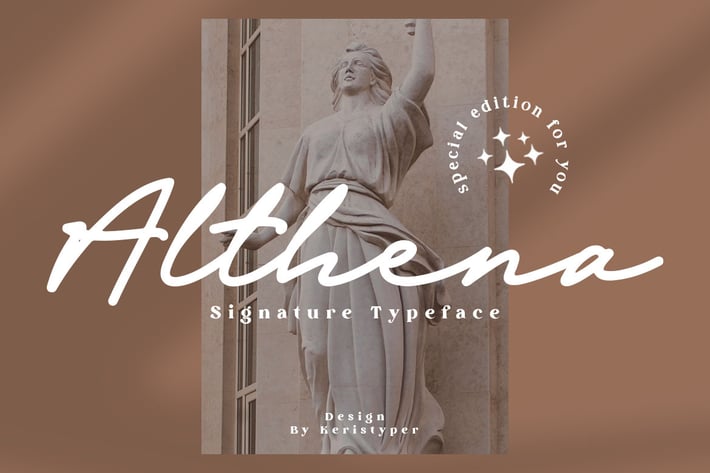
Althena Font
Introducing Althena Classic Signature Font. This font was created with an authentic handwriting pen. This font is perfect for fashion brands, wedding invitations, business cards, logo brands, signatures, and then calligraphy.